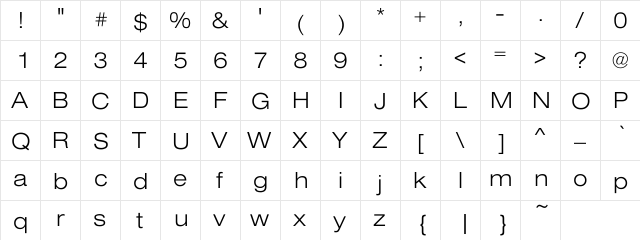
Addington Light Ext Regular
Design Context for Addington Light Ext Typeface
Addington Light Ext offers clean, dependable letterforms without strong stylistic allegiance, making it a practical choice for designers who need flexibility. The delicate stroke weight brings airiness and refinement to layouts.